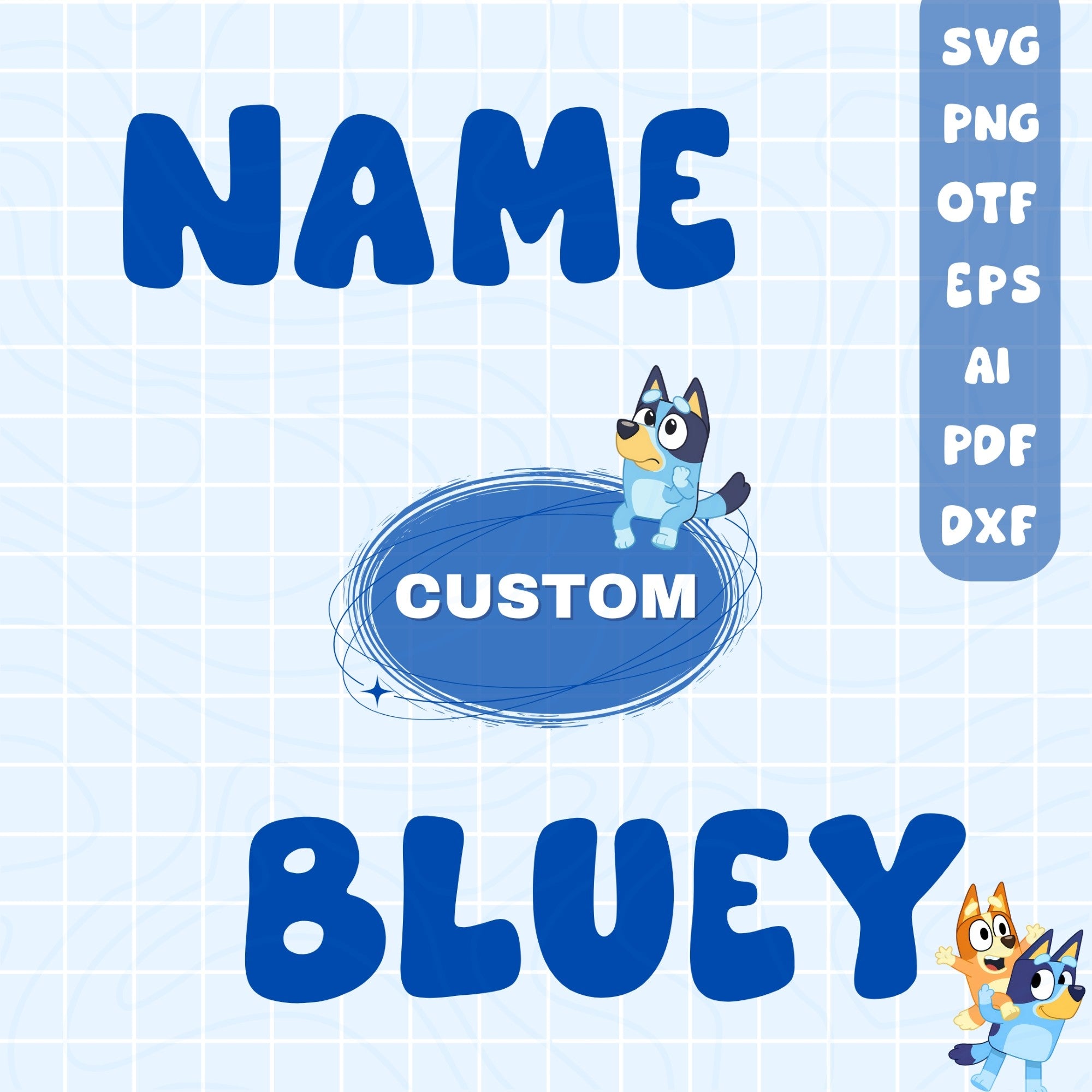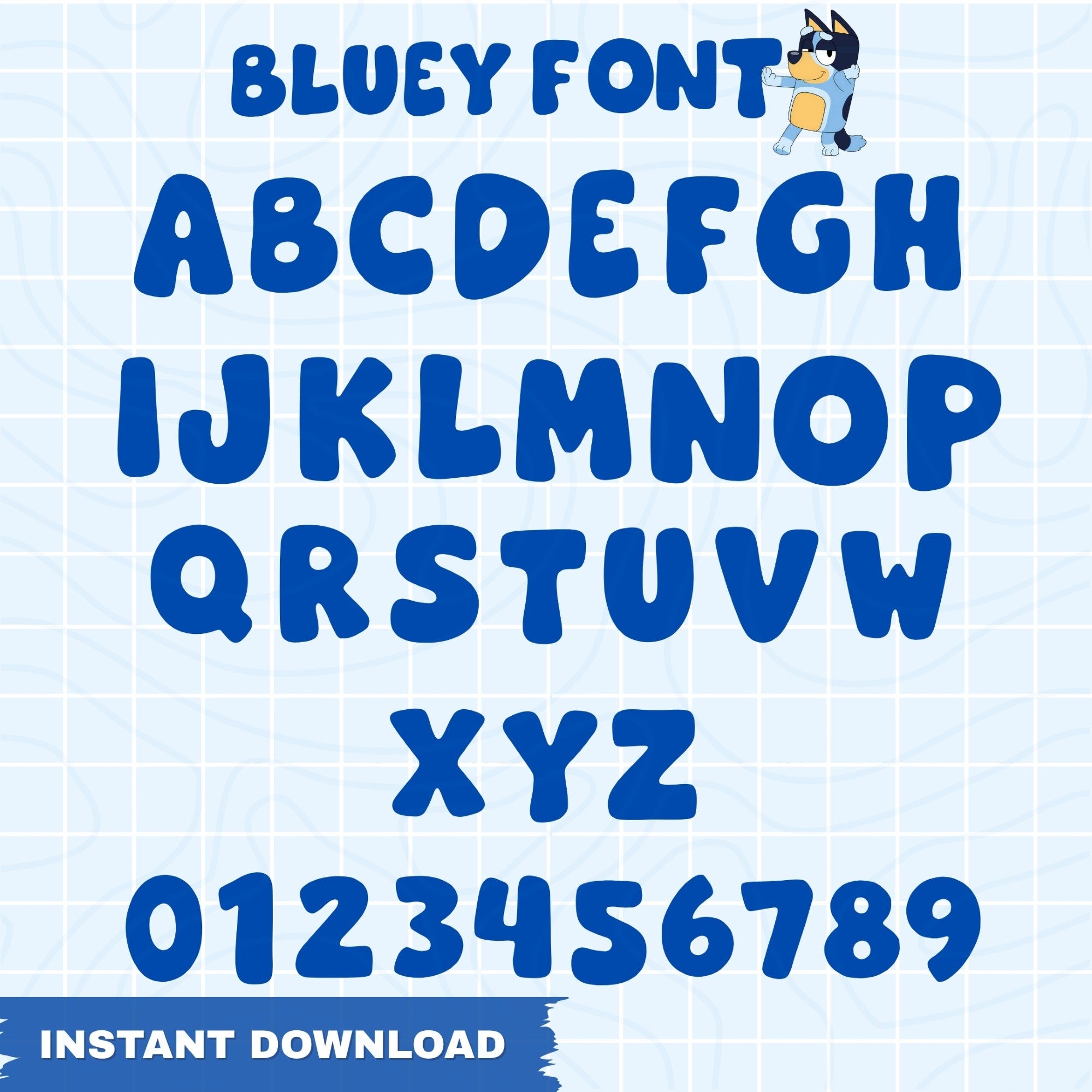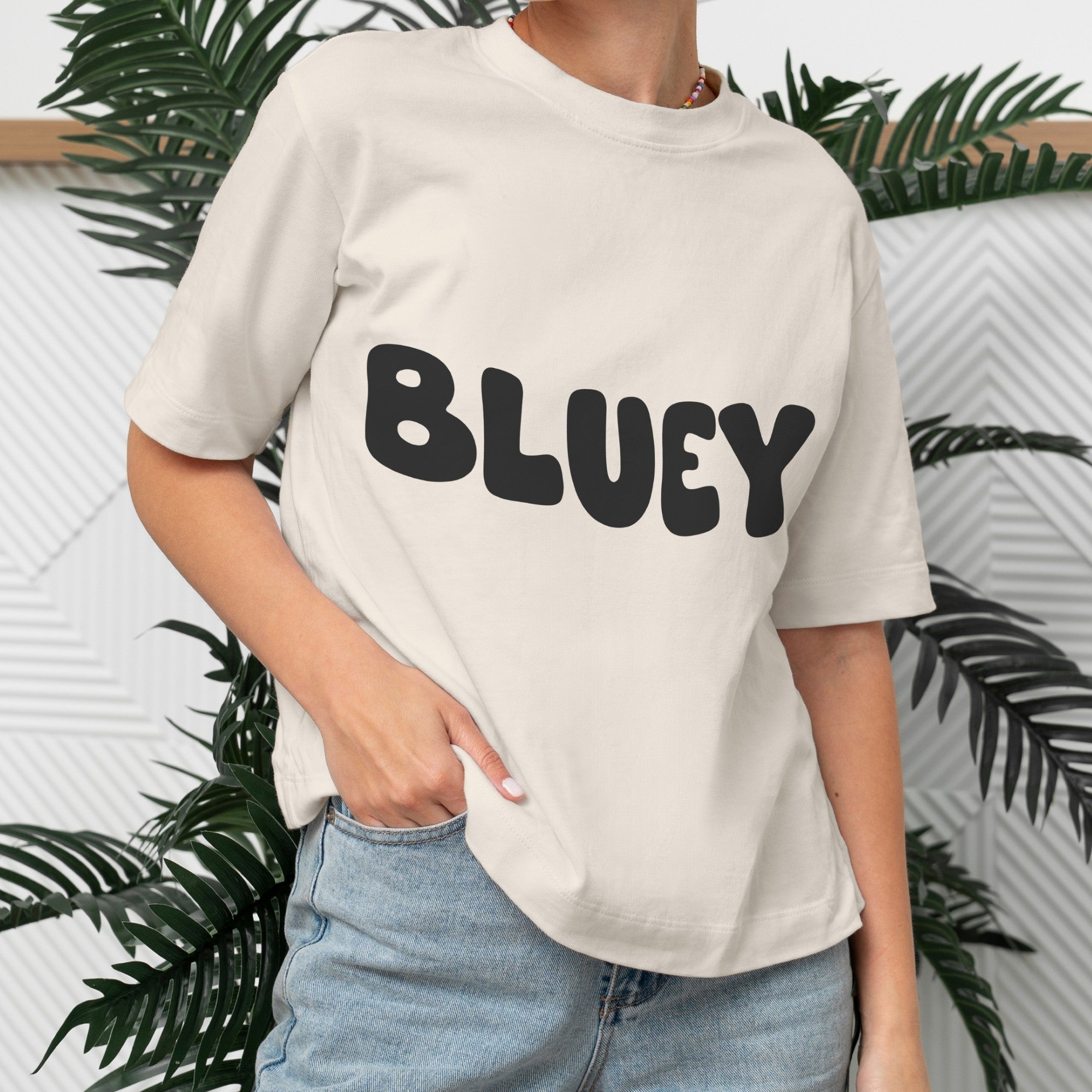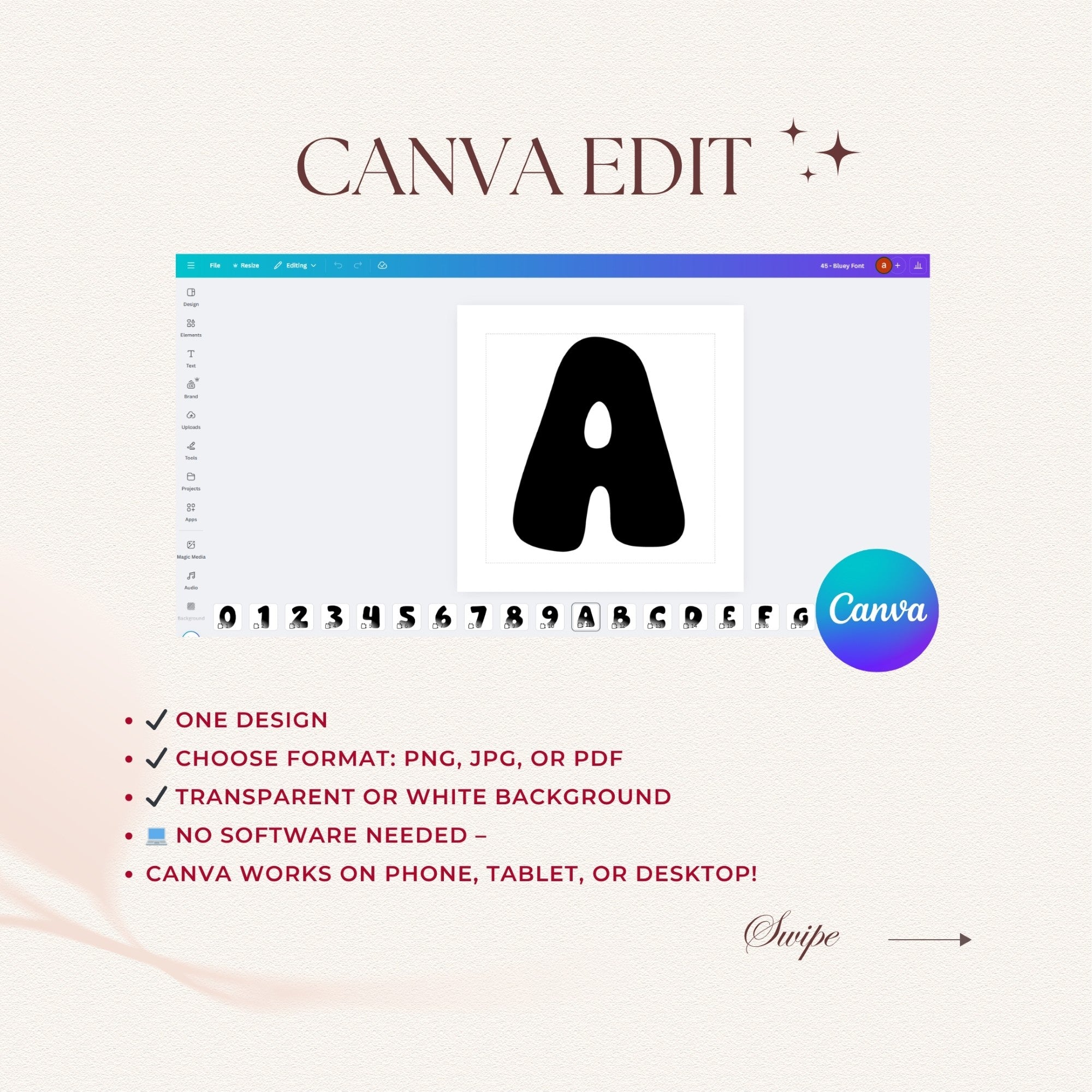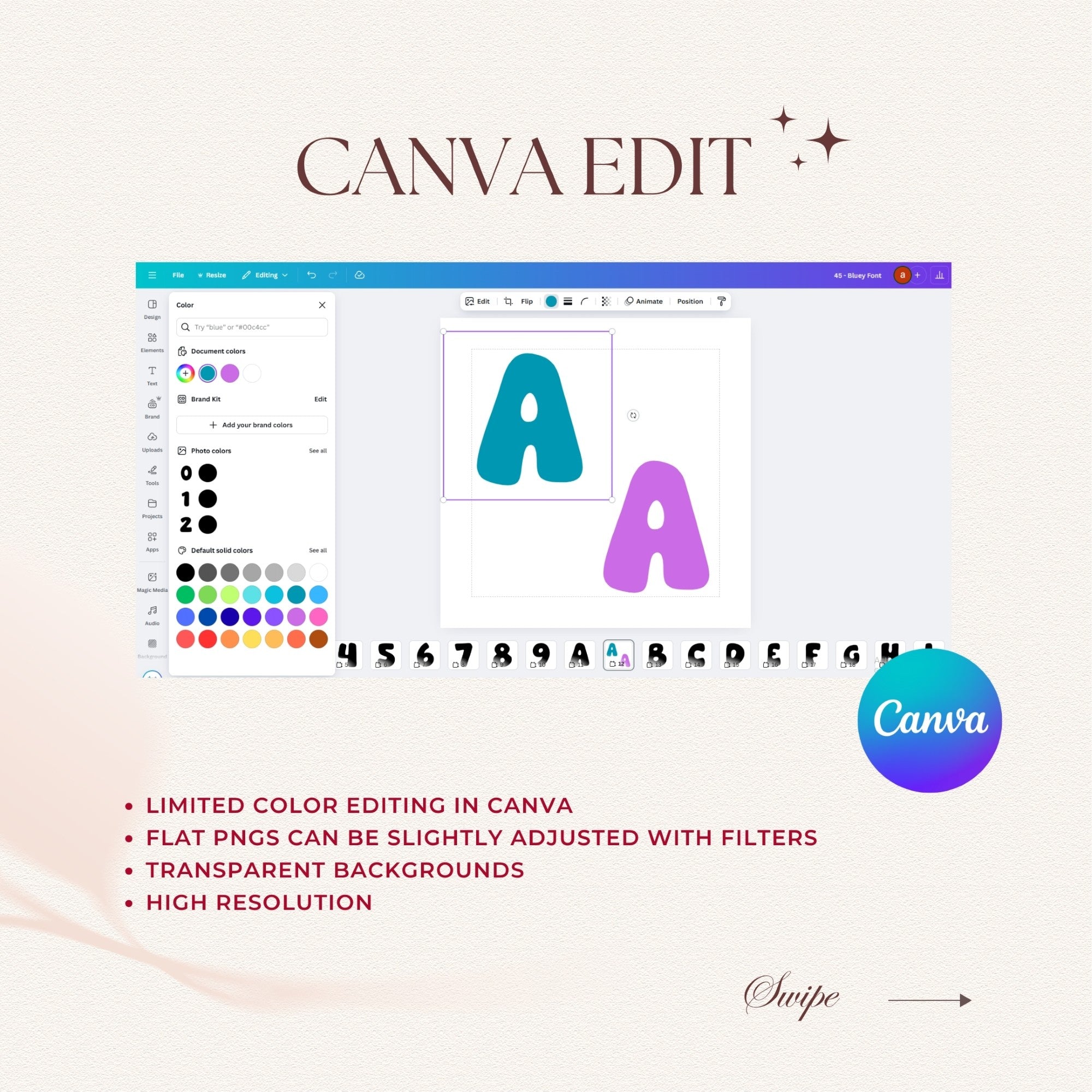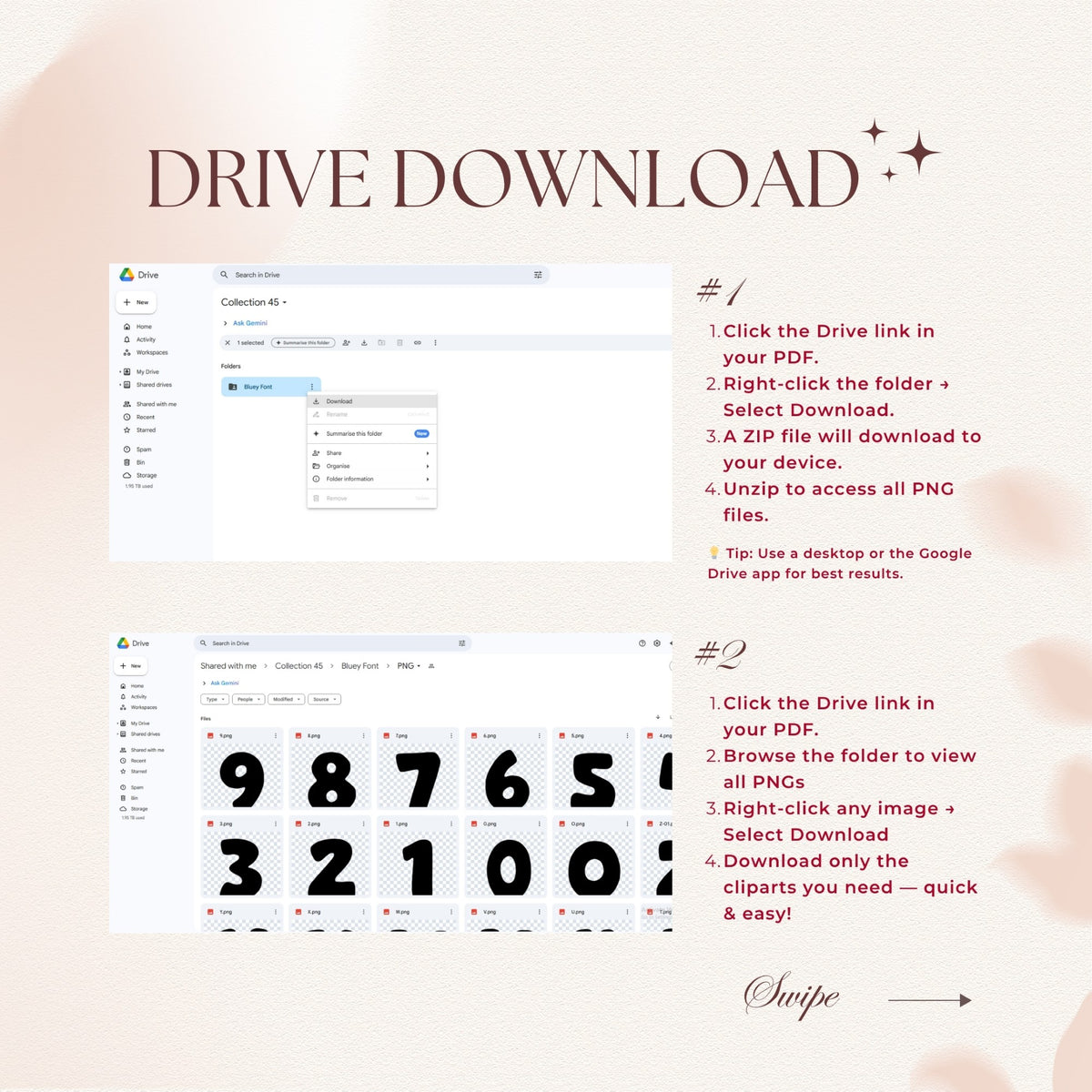
This digital collection features a full alphabet (A-Z) and numbers (0-9) in a fun, Bluey-inspired font. With 36 unique files, this bundle is a must-have for creating custom names, phrases, and age numbers for any Bluey fan.
💙 Included Characters & Styles:
• The complete A-Z alphabet in a bold, Bluey-style font
• All numbers from 0-9 in a matching font